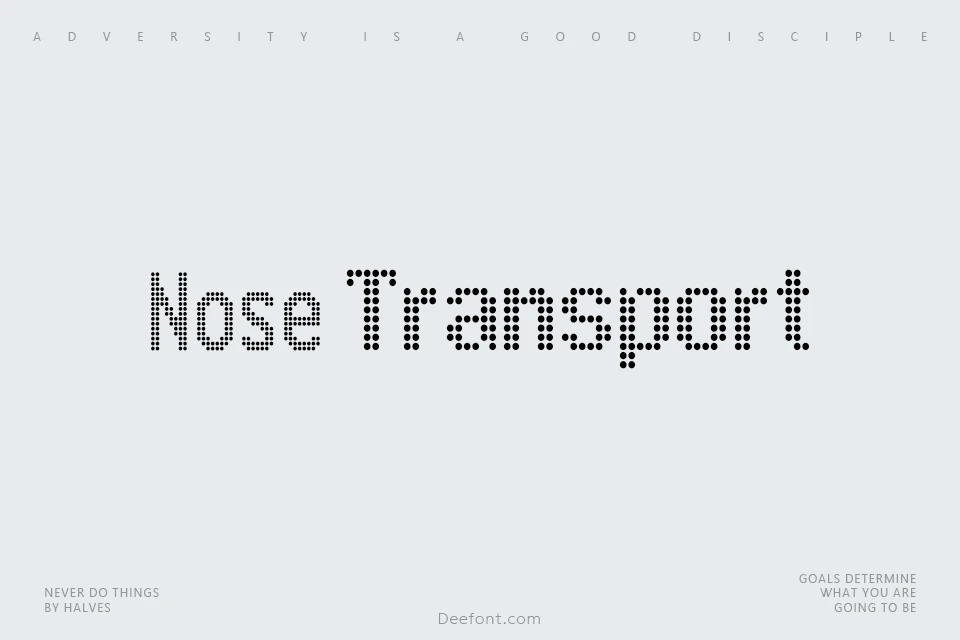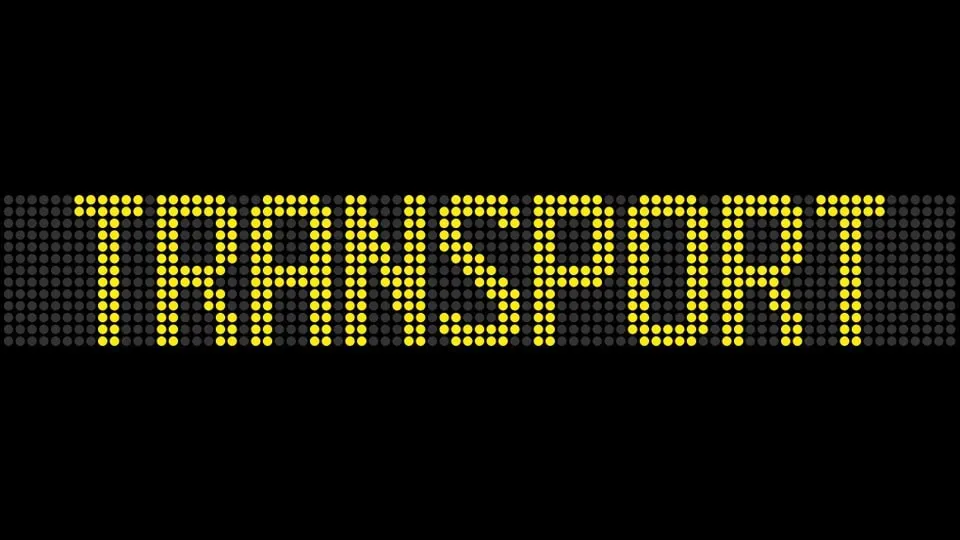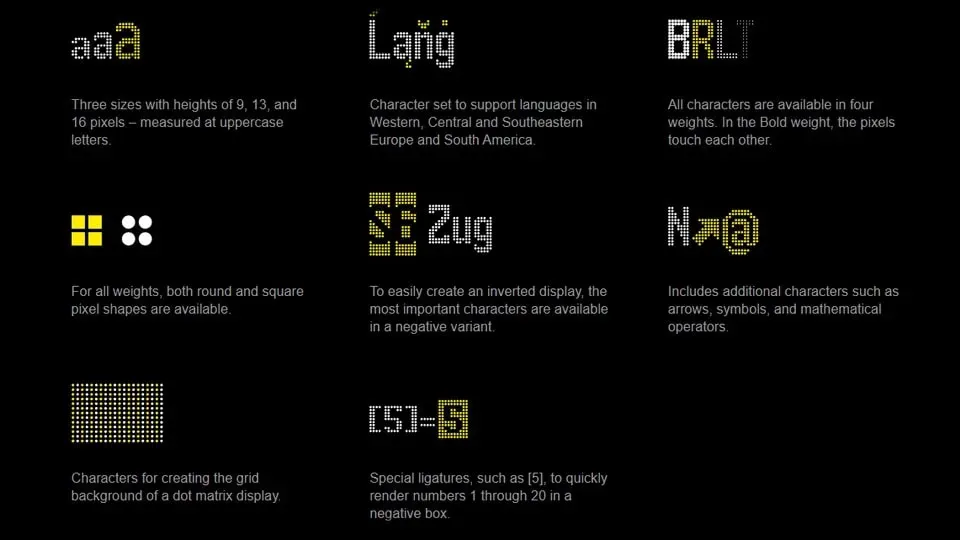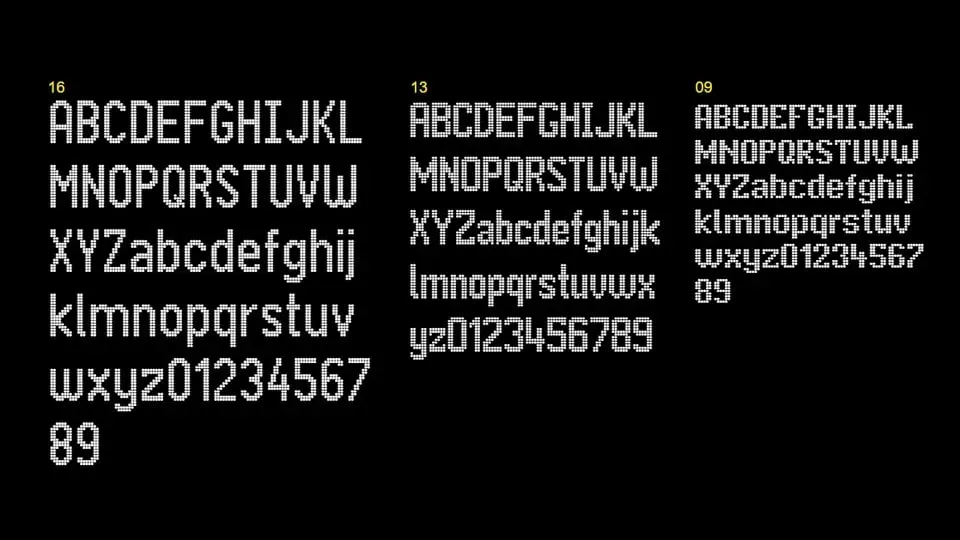
Nose Transport Font Family is a specialized display typeface inspired by dot matrix screens commonly used in Swiss public transportation systems, such as trains, trams, and buses. Designed by Nose AG, this font family combines functionality with clarity, offering three font sizes, four weight classes (Fine, Light, Regular, and Bold), and two pixel shapes (round and square). Its precise and legible design makes it ideal for visualizations on matrix displays, ensuring readability even in challenging environments. Freely available under the SIL Open Font License, Nose Transport is a versatile choice for public information systems and creative projects requiring a technological aesthetic.